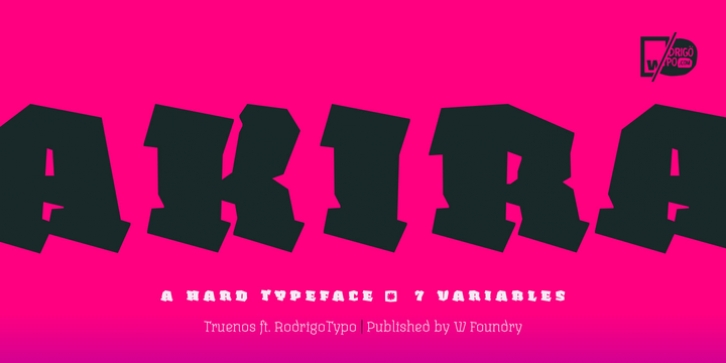
Akira downloadDesigner: Patricio Truenos,
Publisher: W Foundry
Akira is a strong, agile and sharp gothic typeface inspired in the Fraktur style.
It’s composed of 7 weights, 3 of them are the Easy, Normal and Hard, plus one ornaments weight called Coin. For the design of this typeface W Foundry worked alongside RodrigoTypo with the goal to provide 3 style weights which are: Epic, Epic Shadow and Epic Coin, really helpful to provide an a special character to your work.